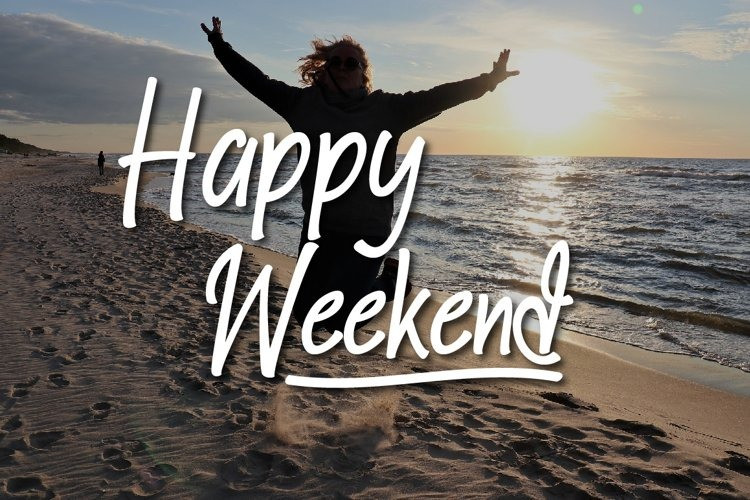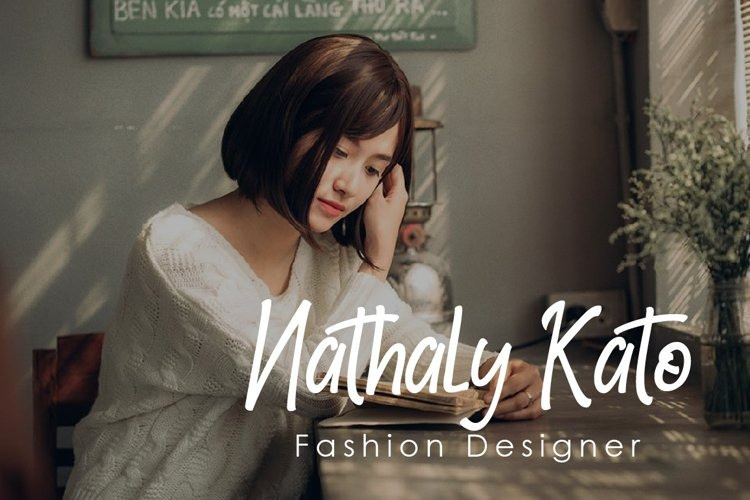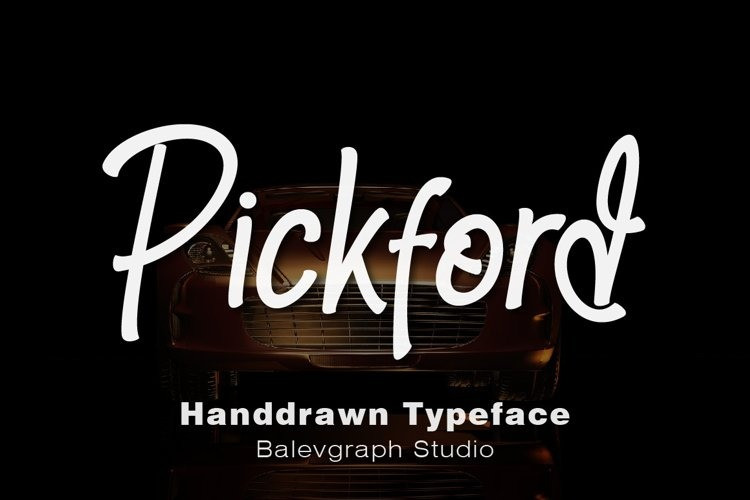
Pickford Display Font
Pickford is an incredibly beautiful paint brushed script font. It has a classy, elegant and modern look that can be used for logos, branding, invitations, stationery, wedding designs, social media posts, and much more!